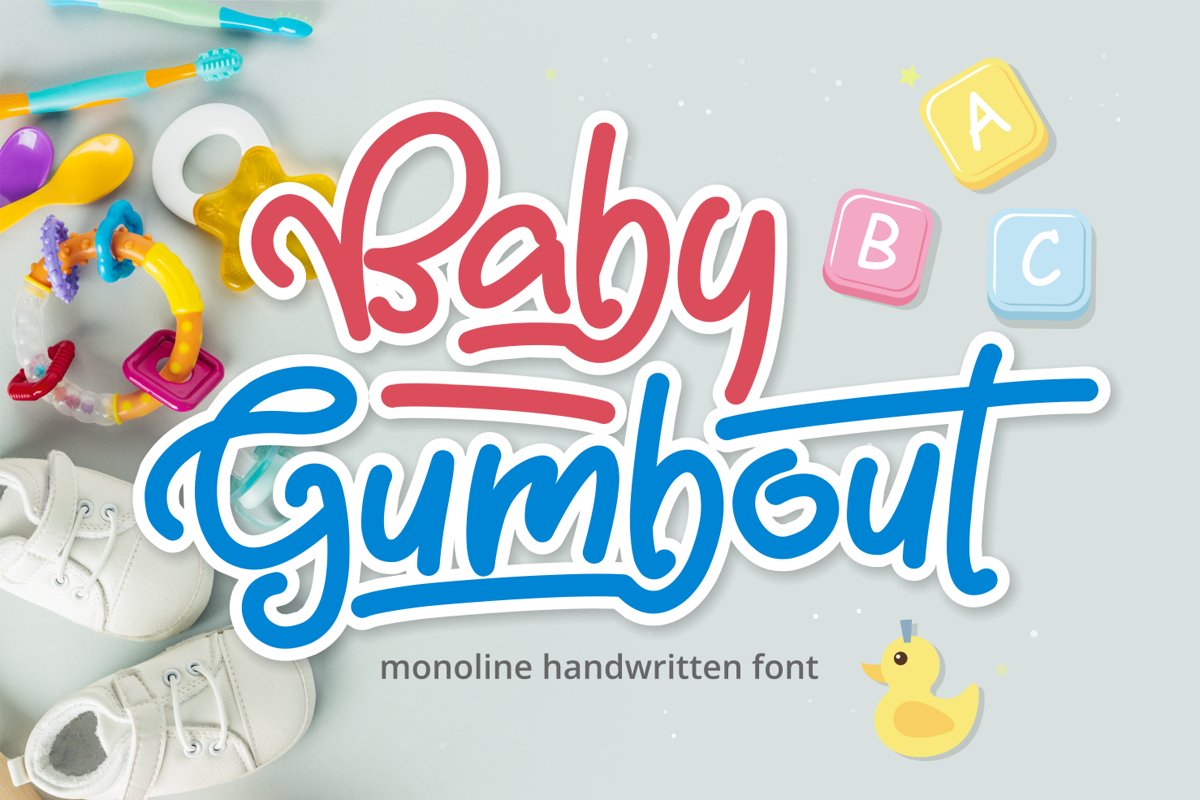
Baby Gumbout
Baby Gumbout is a cheerful, funny and friendly handwritten font. This enchanting handwritten font will turn any creative idea into a true standout. Suitable for branding, headings, invitations, logos, labels, and much more!